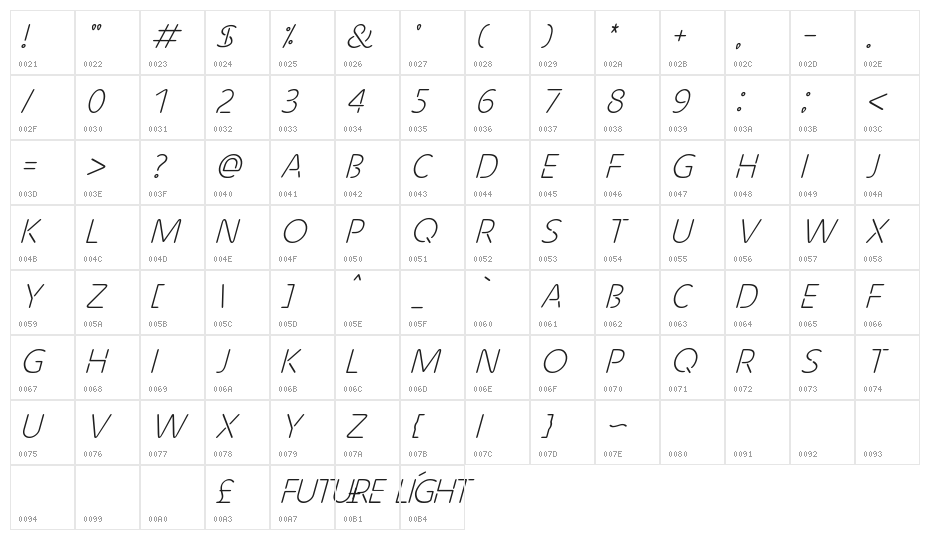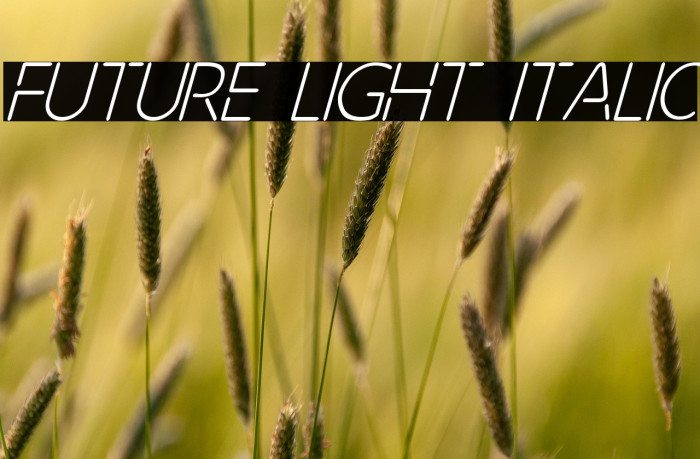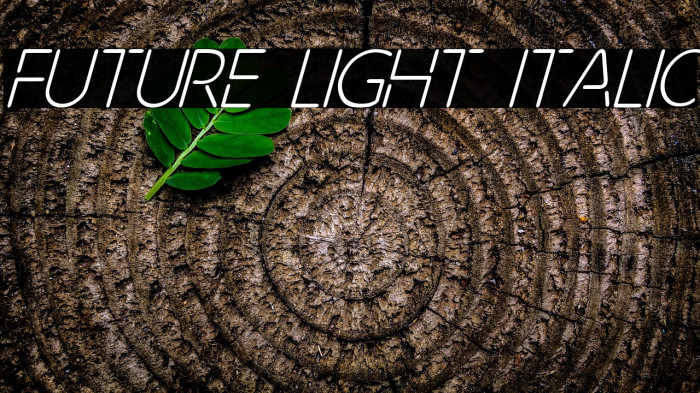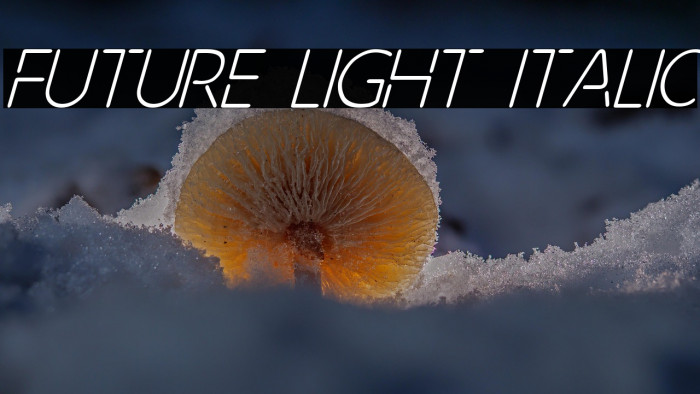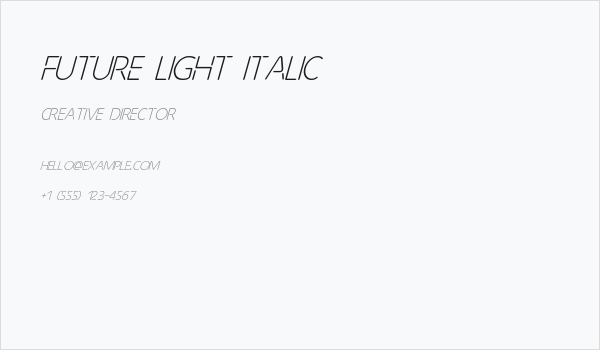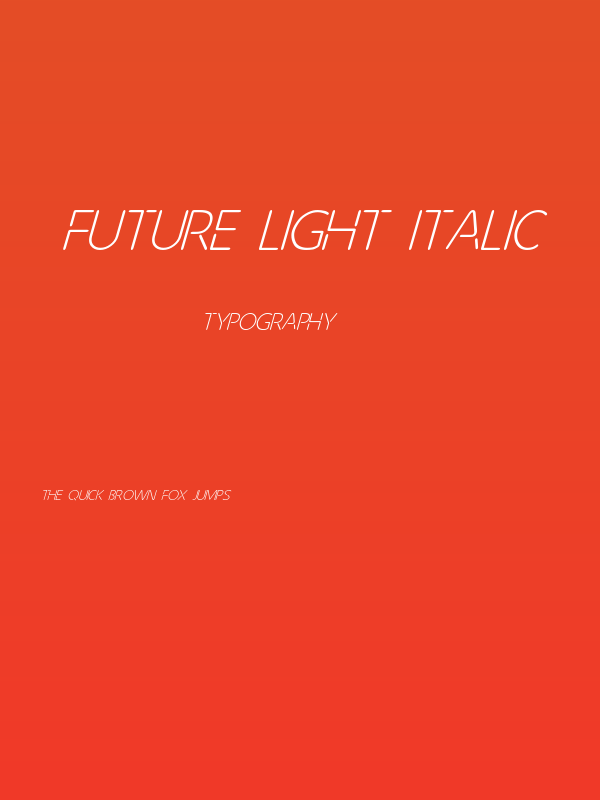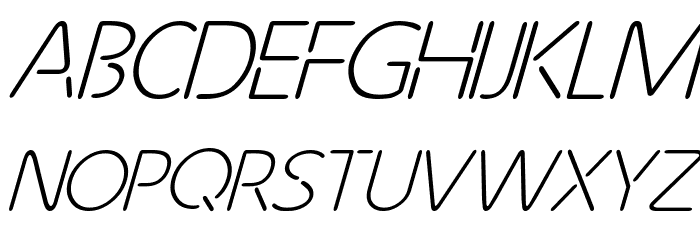
Future Light Italic Font
Future Light Italic Description
This font features a sleek, modern design with a light and airy feel. The italicized style adds a dynamic and forward-leaning appearance, making it ideal for contemporary projects. The characters are elegantly curved with a consistent stroke width, giving it a clean and minimalist look. The spacing between characters is balanced, ensuring readability while maintaining a stylish aesthetic. This font is perfect for projects that require a touch of sophistication and modernity, such as branding, advertising, and digital media.
| Use Case | Headlines, Logos, Digital media |
| Proposed Projects | Ideal for branding, advertising, digital media, and contemporary design projects. |